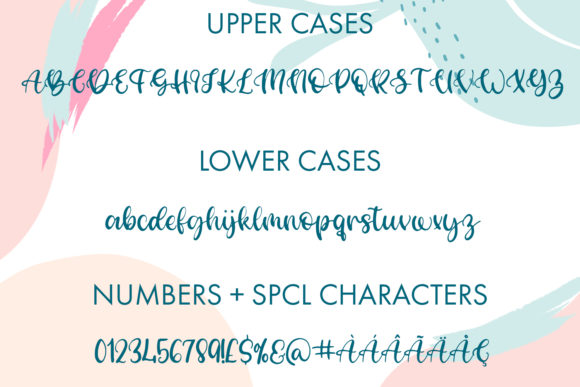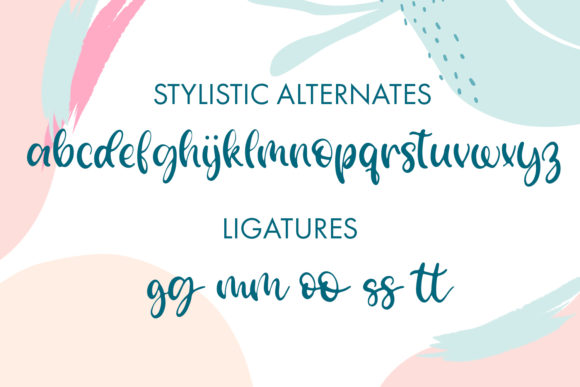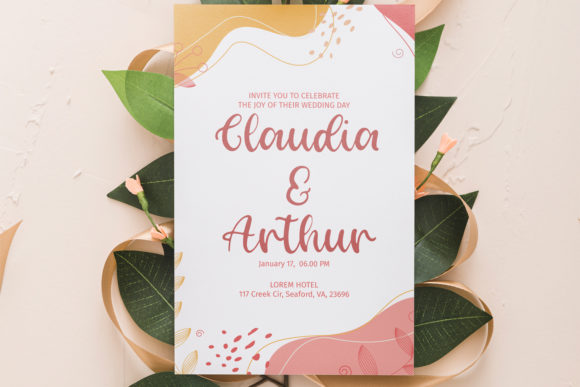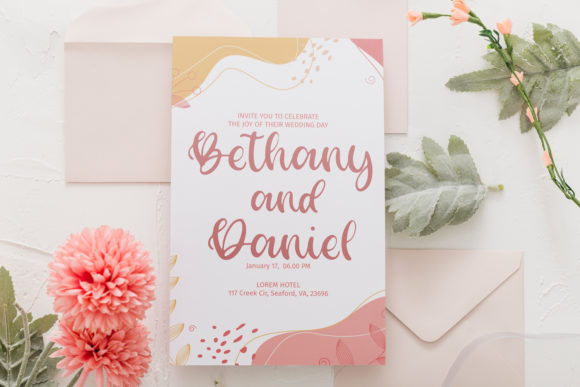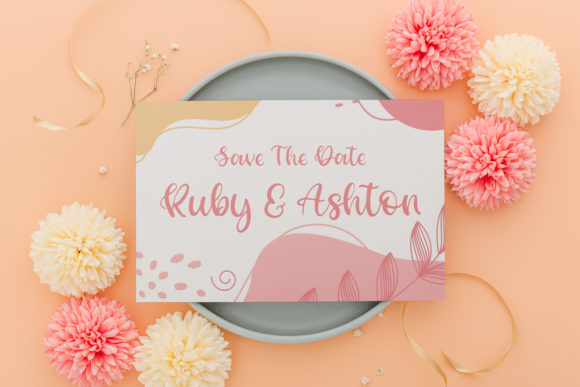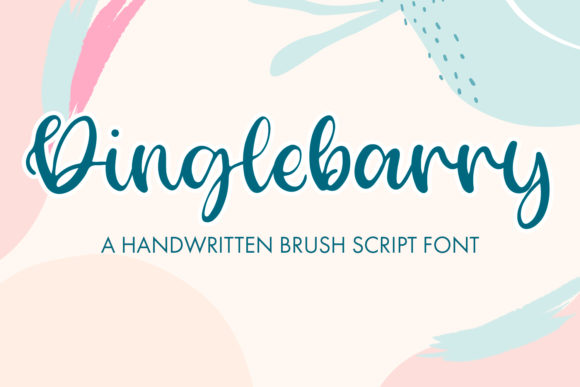
Dinglebarry Font: The Ultimate Guide to this Unique and Exquisite Handwritten Font
Are you a designer or crafter looking for a font that will make your designs stand out from the crowd? Look no further than the Dinglebarry font! This fun and beautiful handwritten font is incredibly unique and exquisite, and is sure to bring your designs to life.
What is Dinglebarry Font?
Dinglebarry is a type of handwritten font that is characterized by its playful and whimsical feel. It features intricate and delicate lettering, with each letter and number carefully crafted to create a sense of movement and energy. The font is perfect for designers and crafters who want to add a touch of personality and flair to their work.
Key Features of Dinglebarry Font
- Unique and Exquisite Design: Dinglebarry font features a one-of-a-kind design that is sure to turn heads. Its intricate and delicate lettering makes it perfect for a wide range of design projects.
- Handwritten Feel: The font has a warm and personal feel, thanks to its handwritten design. It’s perfect for creating designs that feel friendly and approachable.
- Playful and Whimsical: Dinglebarry font has a playful and whimsical feel that makes it perfect for designs that need to stand out from the crowd.
- Multilingual Support: The font supports multiple languages, making it perfect for designers who work with clients from around the world.
Uses for Dinglebarry Font
Dinglebarry font is incredibly versatile, and can be used for a wide range of design projects. Here are a few ideas to get you started:
- Branding and Logo Design: Use Dinglebarry font to create a unique and memorable logo for your brand.
- Social Media Graphics: Add a touch of personality to your social media graphics with Dinglebarry font.
- Invitations and Stationery: Use Dinglebarry font to create beautiful and unique invitations and stationery.
- Packaging Design: Add a touch of whimsy to your packaging design with Dinglebarry font.
Tips for Using Dinglebarry Font
Here are a few tips for getting the most out of Dinglebarry font:
- Use it Sparingly: Dinglebarry font is best used sparingly, as it can be overwhelming if used too much. Try using it as a headline font, and pairing it with a simpler font for body text.
- Experiment with Colors: Dinglebarry font looks great in a wide range of colors, so don’t be afraid to experiment and find the perfect color for your design.
- Pair it with Other Fonts: Dinglebarry font pairs well with a wide range of other fonts, so try experimenting with different combinations to find the perfect look for your design.
Dinglebarry font is a unique and exquisite handwritten font that is sure to bring your designs to life. With its playful and whimsical feel, intricate and delicate lettering, and multilingual support, it’s perfect for a wide range of design projects. Whether you’re a designer or crafter, Dinglebarry font is a great addition to your toolkit.